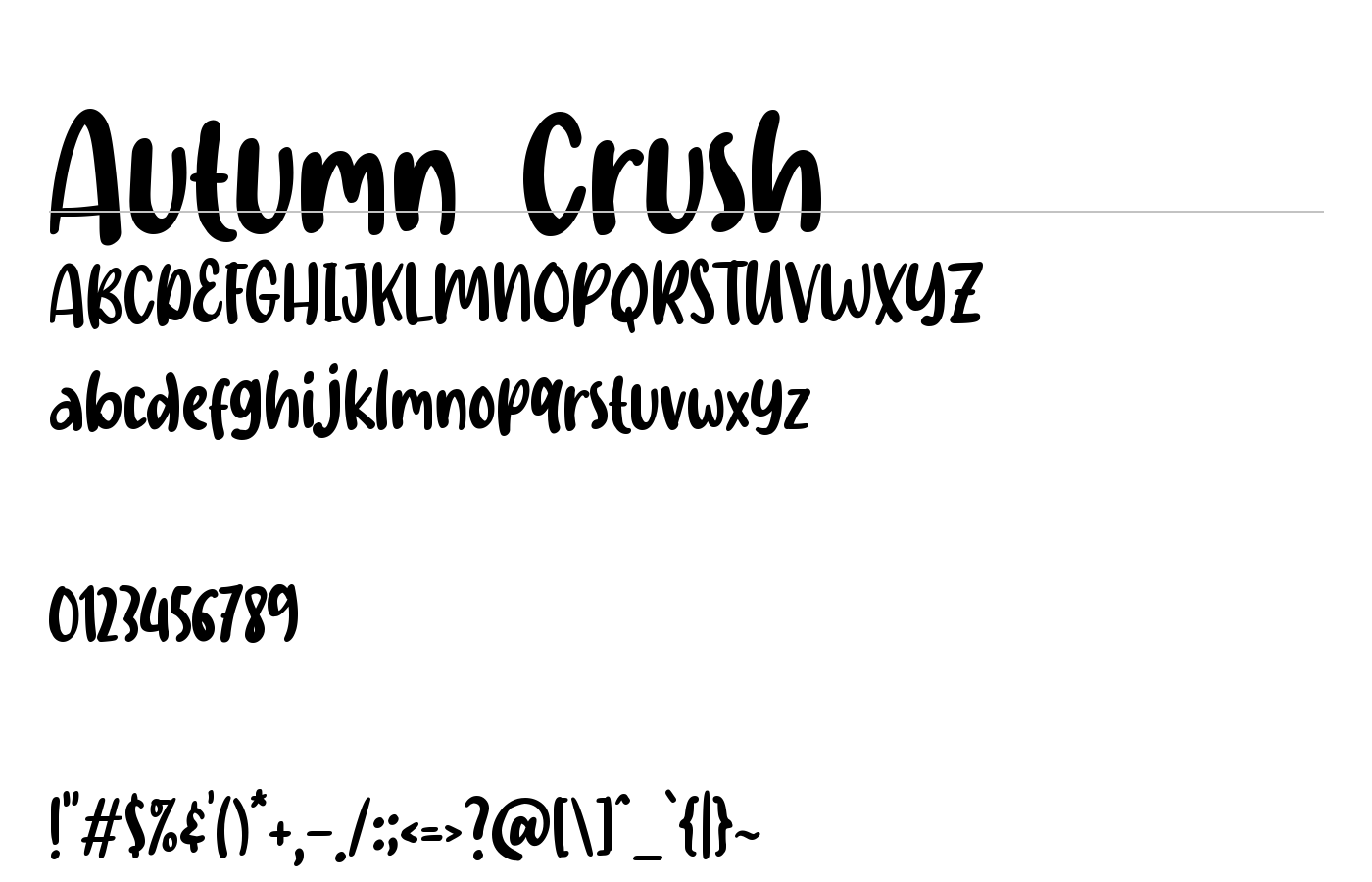
Autumn Crush is a playful, hand-drawn sans serif font with a bold, casual feel. Its rounded, slightly irregular strokes and medium x-height give it a friendly and approachable personality, making it ideal for creative projects, informal branding, and fun editorial designs. This font works especially well in headlines, logos, and packaging where a warm, inviting touch is desired.
Autumn Crush Font
About Autumn Crush Font
| Font family | Autumn Crush Font |
| Designer | Dimas Prasetyo |